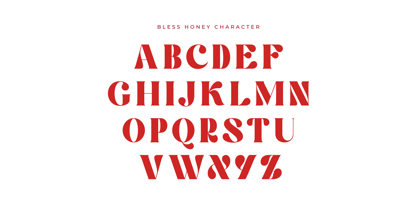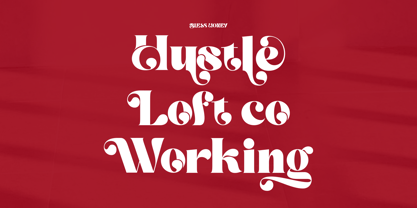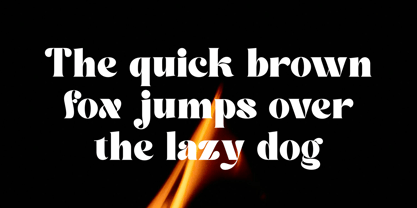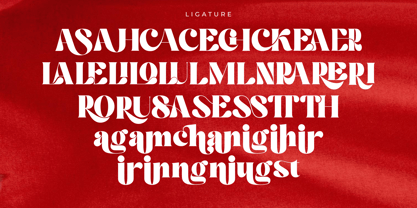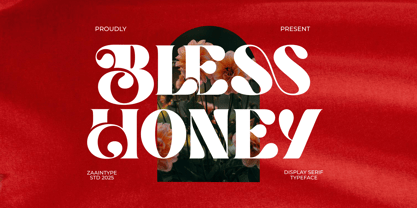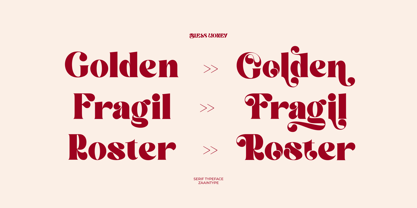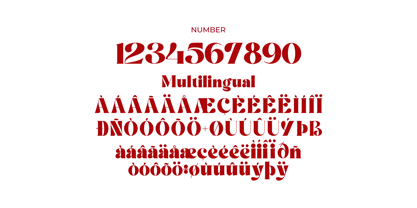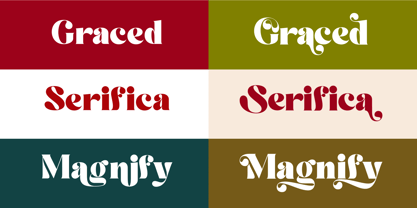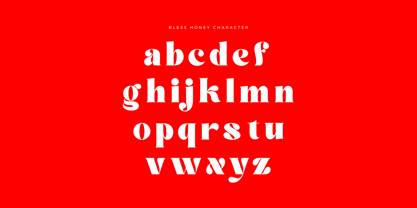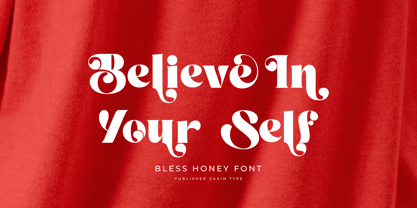
Bless Honey
by Zaain Type
The Bless Honey Font Family was designed by Ju Naen and published by Zaain Type. Bless Honey contains 2 styles and family package options. More about this family
Bless Honey is a charming serif typeface that blends timeless elegance with a soft, graceful touch. Designed with refined contrast and smooth curves, it evokes a sense of warmth and sophistication — perfect for branding, editorial designs, packaging, and high-end fashion. Each letter carries a delicate yet confident presence, making Bless Honey a graceful companion for projects that seek both beauty and character
Designers: Ju Naen
Foundry: Zaain Type